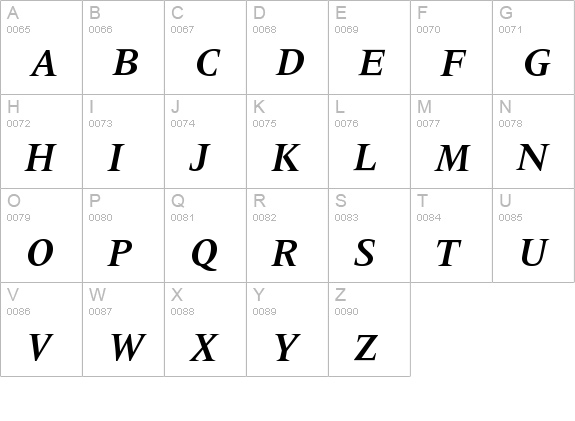
Meridien Bold Italic is a strong, high-contrast, italic variant in the Meridien typeface family \xE2\x80\x94 well suited to headlines, attention-grabbing titles, and strong calls-to-action.
Meridien Bold Italic font exudes elegance and sophistication with its sleek and stylish design. The perfect balance between boldness and italic flair, this font is ideal for creating eye-catching headings, titles, and logos. The sharp angles and precise curves give Meridien Bold Italic a contemporary and dynamic look that is sure to make a statement in any design project. And the best part? Meridien Bold Italic font is available for free download at FontsMarket.com! Simply visit the website to enhance your creative projects with this stunning font. Whether you're designing a website, crafting a brochure, or working on a branding project, Meridien Bold Italic font will add a touch of class and sophistication to your work. Download it today and elevate your designs to the next level.